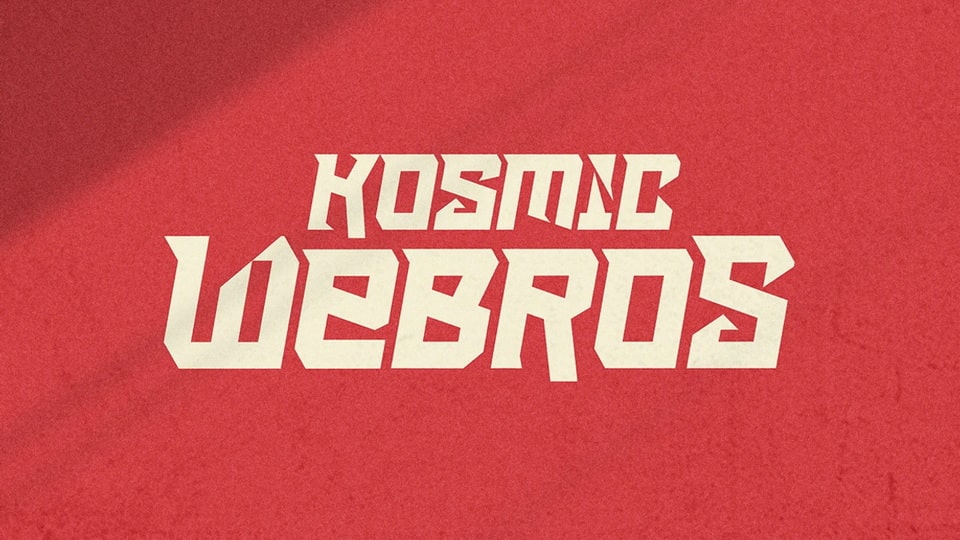
Download Kosmic Webros font, a bold and futuristic typeface that exudes a dynamic, modern vibe. Its sleek, slightly slanted design gives it a sense of motion and energy.